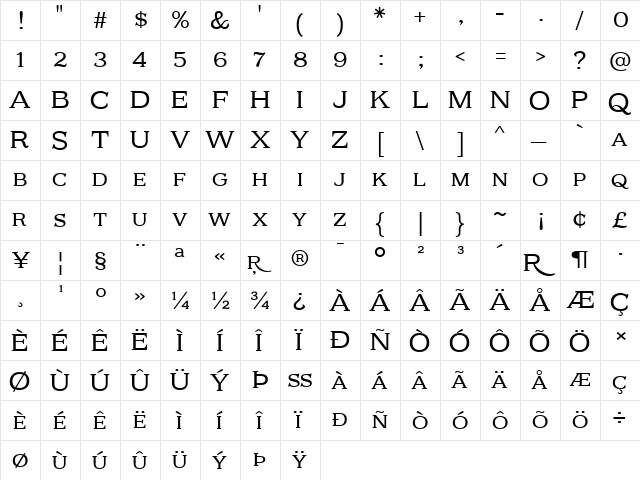
Kelvingrove Regular
Design Context for Kelvingrove Typeface
Kelvingrove is a composed and adaptable typeface that performs quietly and consistently across a wide range of design contexts.
Pro Tip: Use Kelvingrove in both headline and body roles to test its range before committing to a single application.